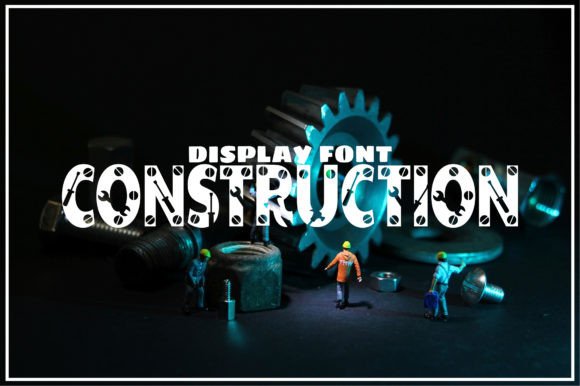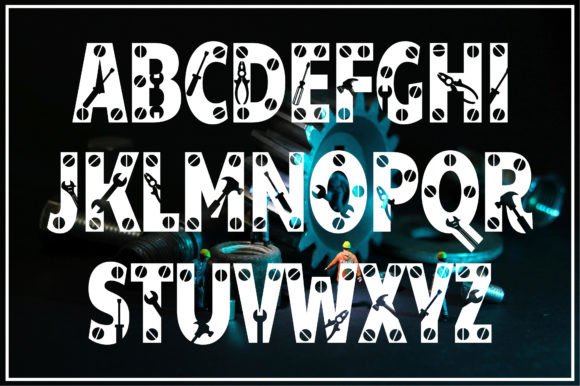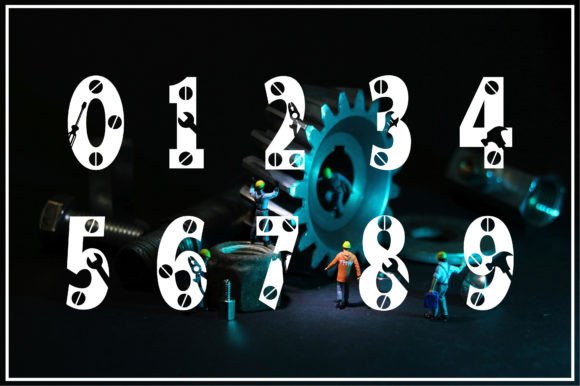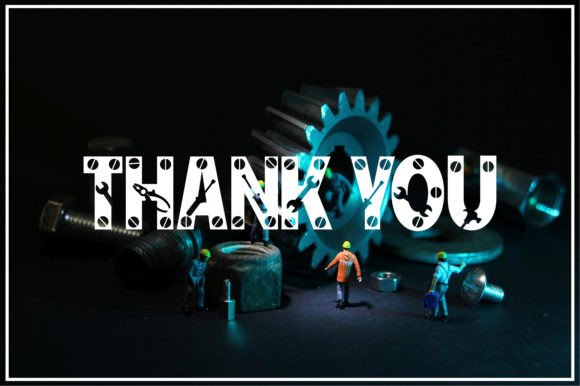
Construction Font
“Construction Font” is the ultimate display font for builders, architects, and creators. Designed to emulate the raw strength and precision of construction elements, its bold letterforms and angular aesthetics demand attention. Perfect for branding, signage, and impactful designs that stand tall in the visual landscape. Unleash your creative blueprint with Construction Font today.